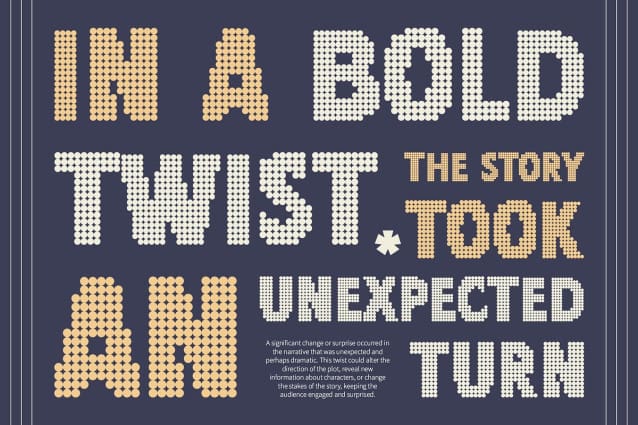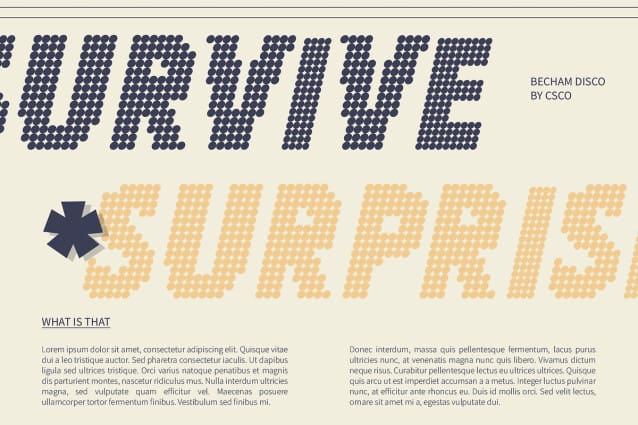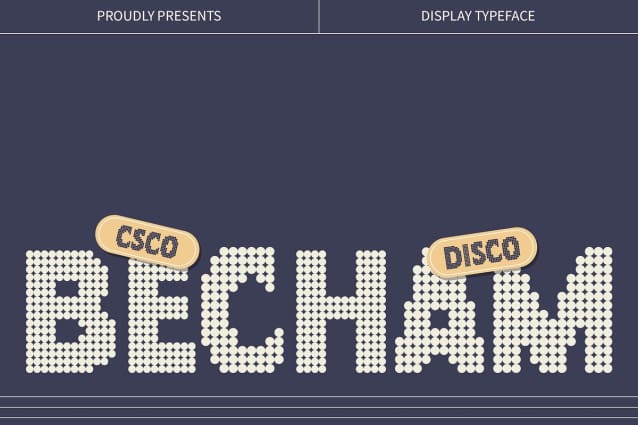
Becham Disco Font
Becham Disco Font is a striking modern sans-serif font that brilliantly fuses bold contemporary design with cheerful retro aesthetics. Inspired by the vibrant energy of the disco era, this font captures the essence of dance and celebration while maintaining a fresh, modern appeal that resonates with today’s audiences.
Dynamic and Readable Letterforms The characters of Becham Disco feature sharp lines and balanced proportions, ensuring a strong and easily readable appearance. Each letterform is crafted for clarity, making it an excellent choice for a variety of applications, from large-scale event posters to sleek digital media. The font’s versatility ensures that your message stands out prominently, allowing it to shine in any context.
Sparkling Disco Effect What truly sets Becham Disco apart is its captivating disco effect, which adds an enchanting sparkle and movement to each character. This dynamic visual element creates an energetic vibe, instantly evoking the lively atmospheres of disco dance floors and festive celebrations. The incorporation of lively effects and gradients mimics the glimmer of disco balls, making it particularly suited for designs that aim to uplift and engage audiences.